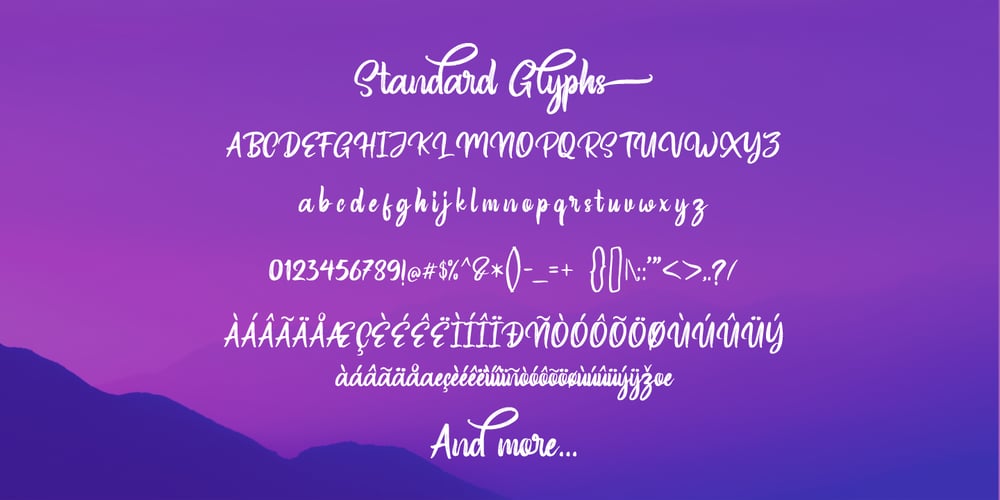
Wondertime Font Family was designed by Ferry Hadriyan and published by FHFont. Wondertime contains 1 styles and family package options. Wondertime is handwritten script font with signature style. Suitable for design, element design, wedding, event, t-shirt, logo, badges, sticker, and awesome work, etc…